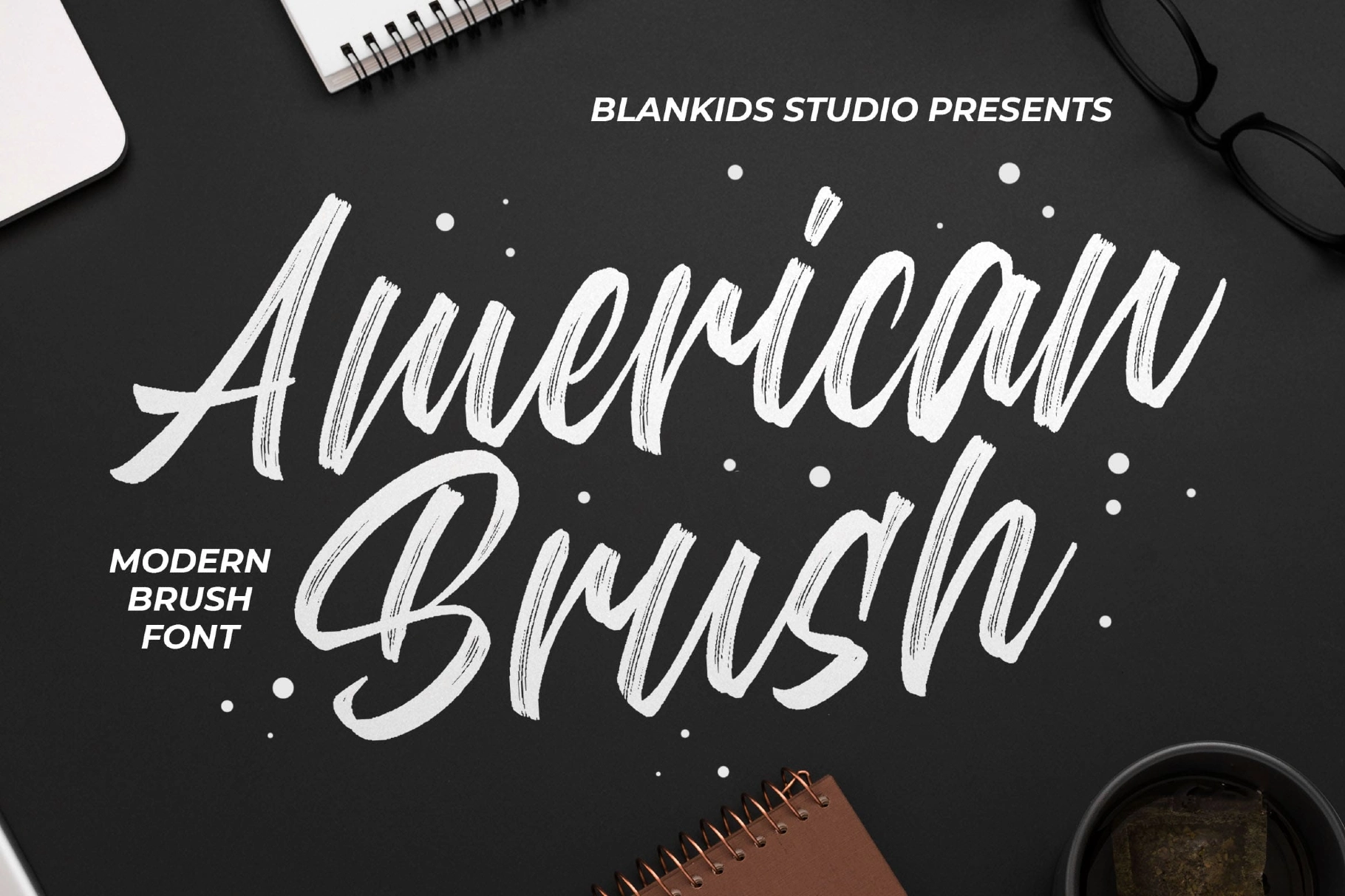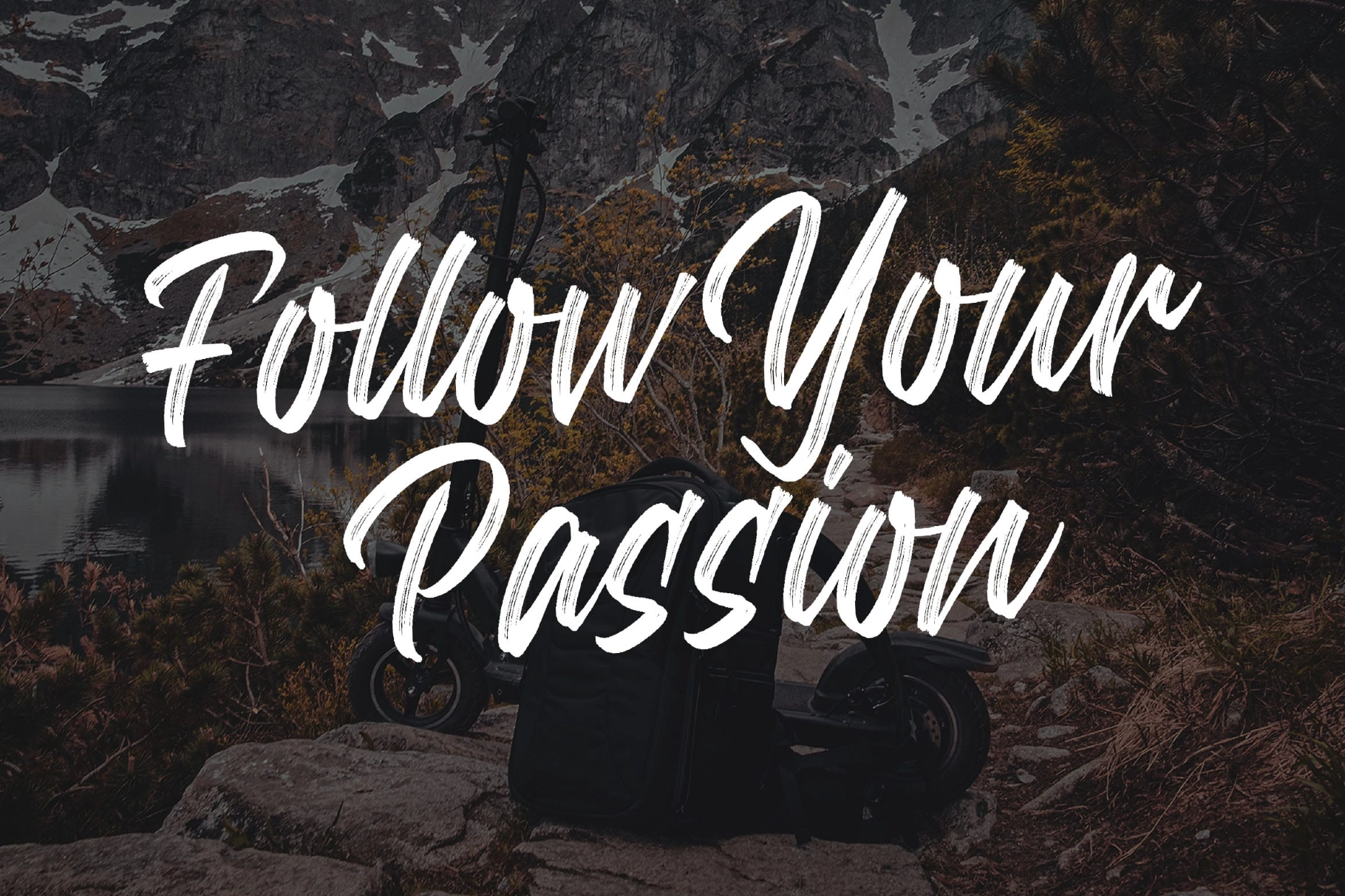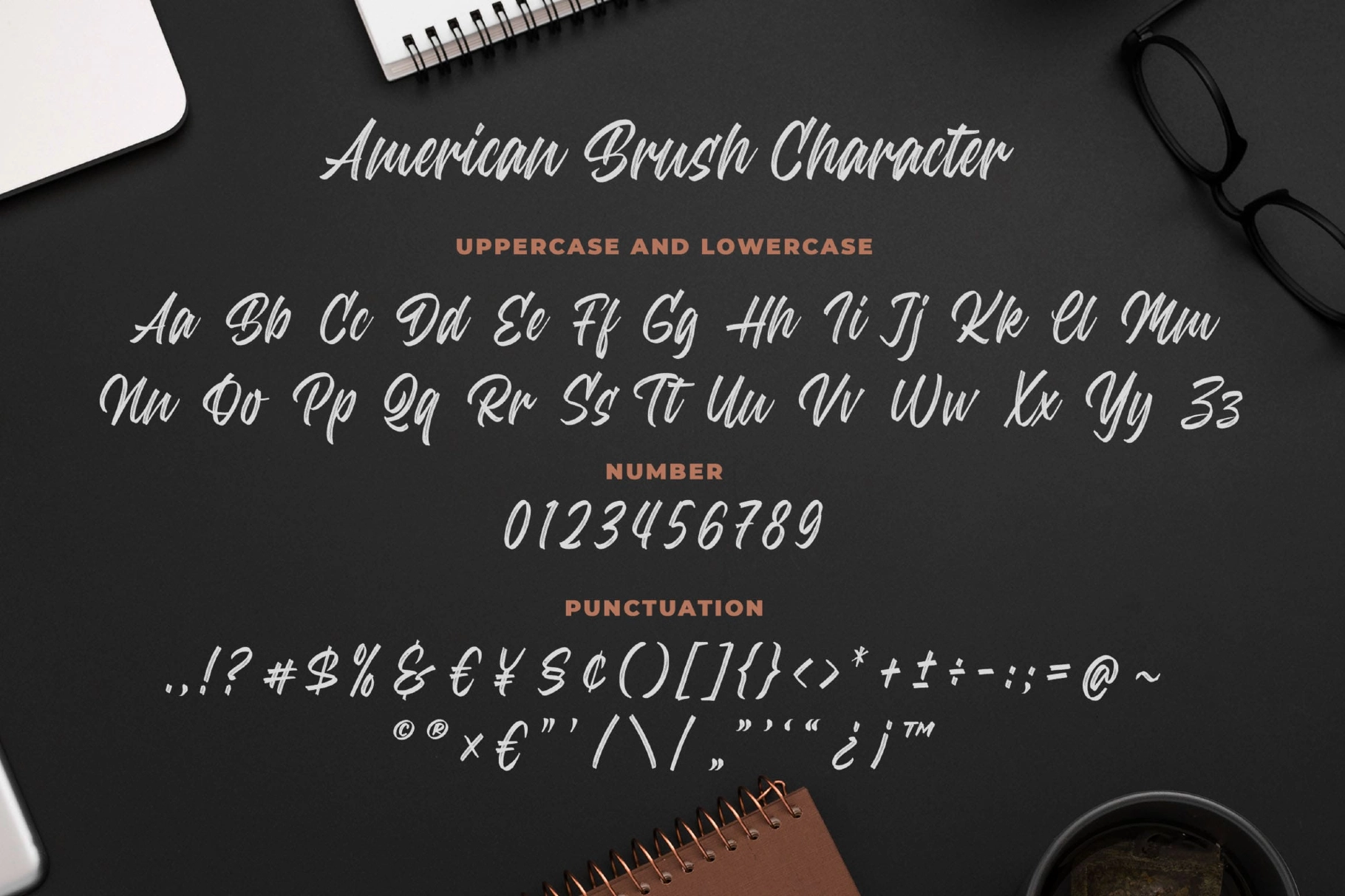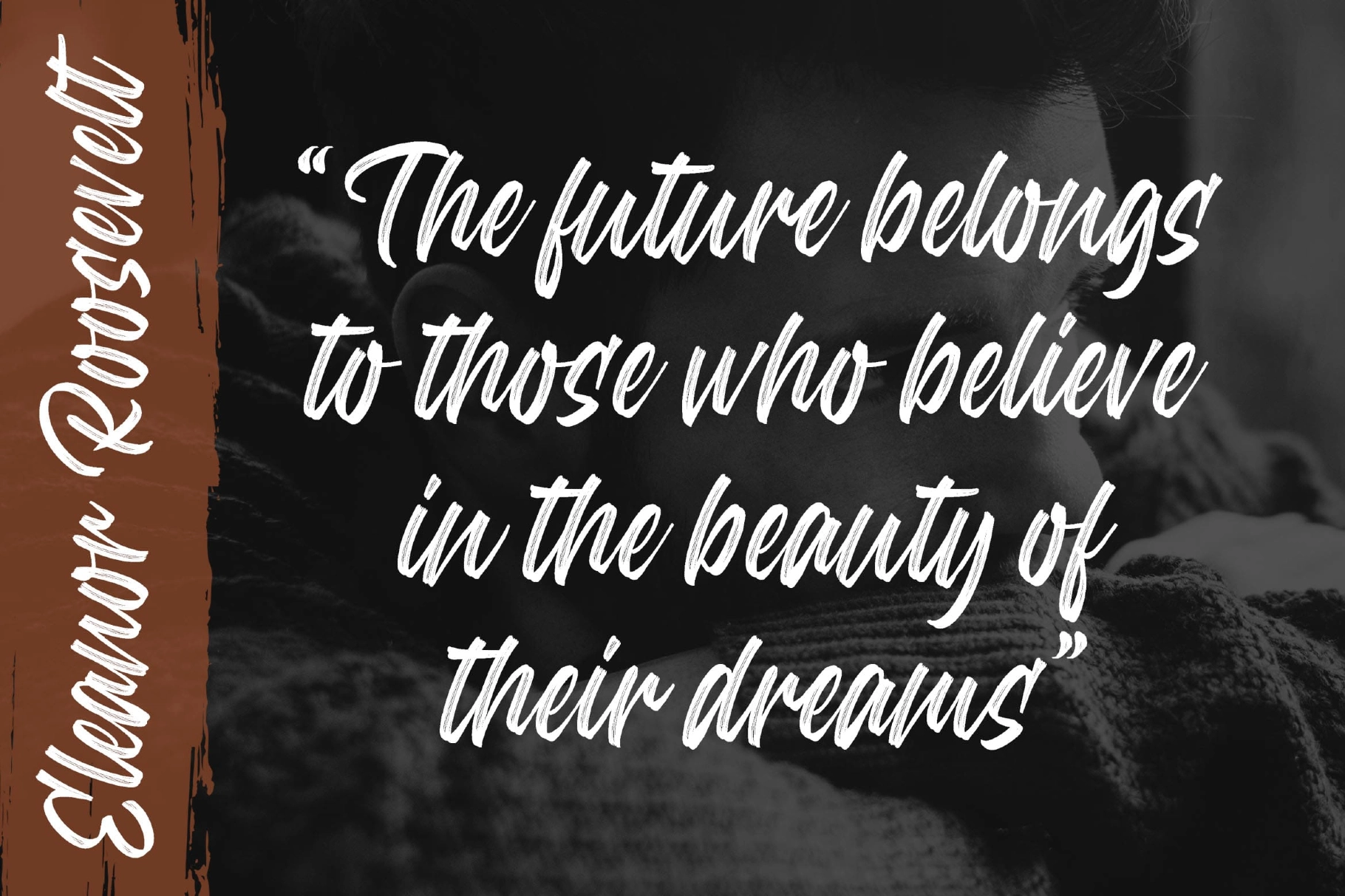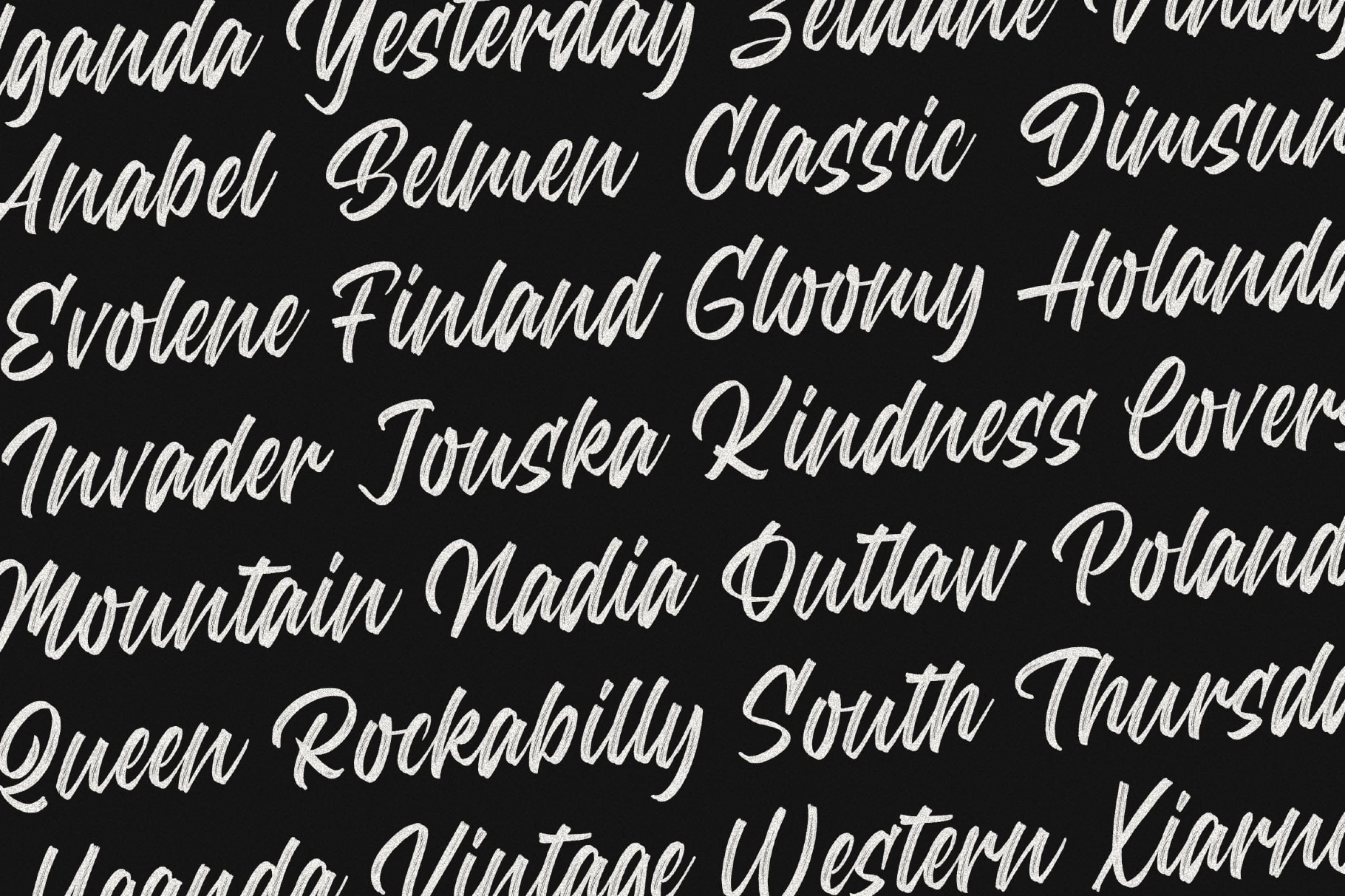
American Brush a Modern Brush Font
American Brush – Modern Brush Font is a dynamic handwritten typeface inspired by expressive brush lettering and contemporary typography. Designed with natural brush strokes and energetic curves, this font brings a lively, artistic personality to modern design. Its bold yet playful character makes typography feel organic and engaging, helping creative projects stand out with a handcrafted touch.
The expressive brush texture and balanced structure allow American Brush to perform beautifully across a wide range of applications, from branding and posters to packaging and merchandise. Whether used for logotypes, book covers, or creative promotional graphics, the font delivers a strong visual impact while maintaining readability and style.
• Uppercase & Lowercase Characters
• Numerals & Punctuation
• OpenType Features
• Brush Lettering Style